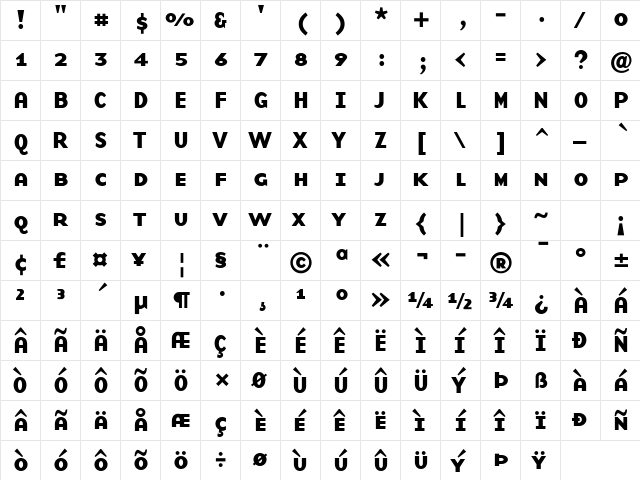
BaseNineSCB Roman
Design Context for BaseNineSCB Typeface
BaseNineSCB is a composed and adaptable typeface that performs quietly and consistently across a wide range of design contexts.